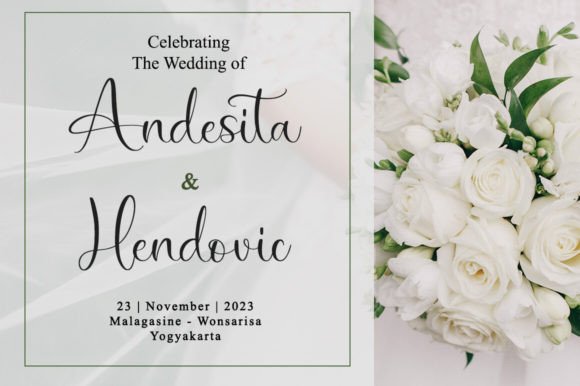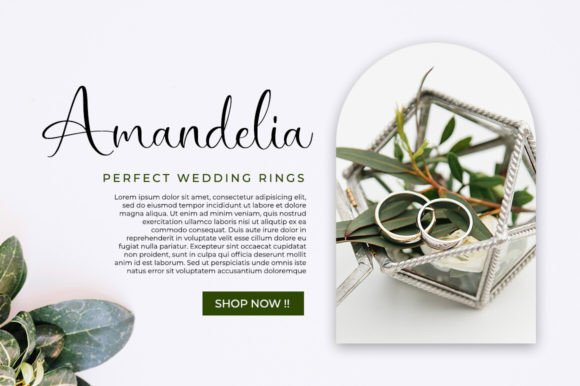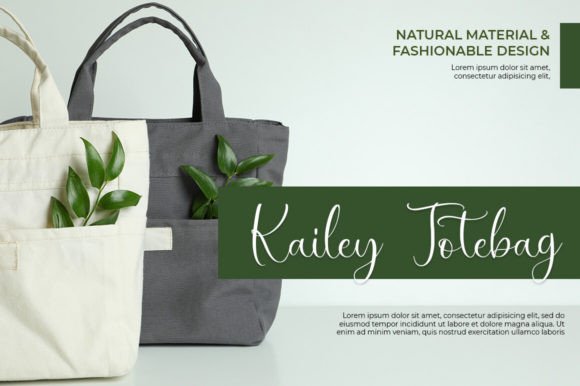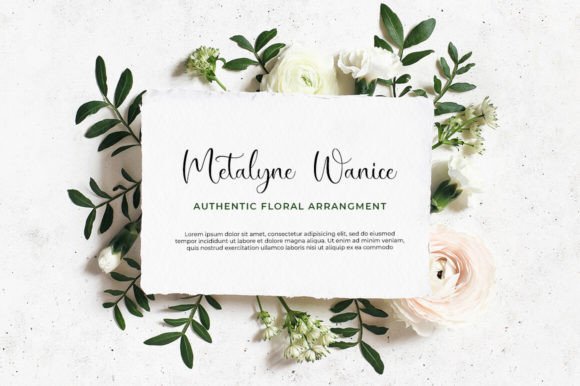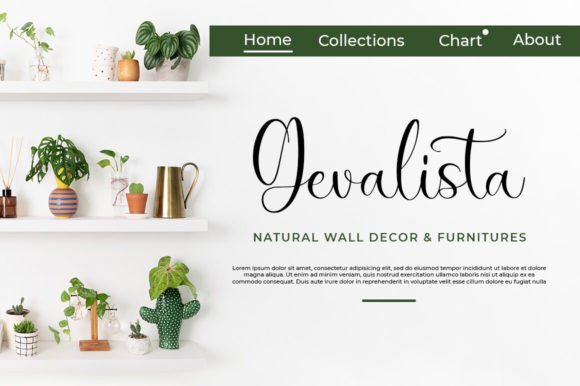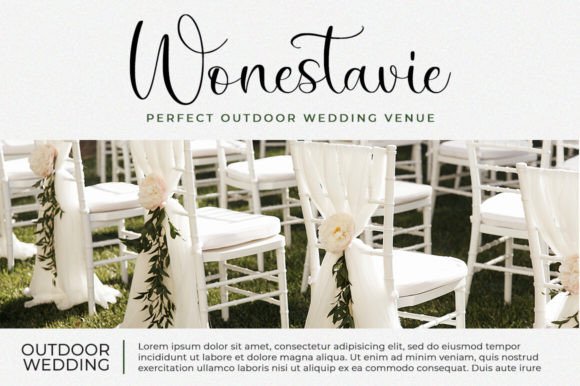
Introduction to Biancalisa Font
Have you ever stared at a blank canvas, searching for the perfect font to bring your creative project to life? I know I have! There’s something magical about watching words transform into a beautiful, handwritten script that captures the essence of your vision. For designers, finding the right font can be a game-changer – it’s the difference between a good design and a great one.
That’s why I’m excited to share with you the Biancalisa Font, a stunning script font that’s perfect for any creative project. With its elegant, high-quality design, this font is a valuable resource for designers looking to add a touch of personality to their work. Whether you’re working on a logo, invitation, or product packaging, the Biancalisa Font is sure to impress.
Key Features of Biancalisa Font
- High-quality font with a unique, elegant design, perfect for creative projects and design resources.
- Designed with a modern aesthetic, Biancalisa Font is ideal for use in logos, branding materials, and other visual identity projects.
Honest Review: Biancalisa Font
One of the standout features of the Biancalisa Font is its high-quality design. The font is clean, modern, and versatile, making it perfect for a wide range of creative projects. I’ve used it for everything from branding to digital art, and it always looks professional.
Here are some of the things that work well with the Biancalisa Font:
- ✨ High-quality design: The font is crisp and clear, making it perfect for both on-screen and print use.
- ✨ Transparent background: This feature allows for seamless integration with transparent backgrounds, giving my designs a clean and modern look.
- ⚠️ Limited font weights: While the Biancalisa Font is available in a range of weights, I wish there were more options for greater flexibility.
- ⚠️ Limited language support: The font only supports a limited range of languages, which may be a concern for designers working on multilingual projects.
Overall, I’m really impressed with the Biancalisa Font. It’s a high-quality design resource that’s perfect for creative projects. With a few minor limitations, it’s a great addition to any designer’s toolkit.
Biancalisa Font
Tips for Getting the Most Out of Biancalisa Font
To get the most out of the Biancalisa Font, use it on a transparent background for a clean and elegant look. You can also pair it with other design elements to create a unique and eye-catching design.
The Biancalisa Font is ideal for creative projects that require a touch of elegance, such as wedding invitations, business cards, and brochures. It’s also great for social media graphics, blog posts, and other online content.
Is the Biancalisa Font suitable for print or digital use?
The Biancalisa Font is designed to be versatile and can be used for both print and digital applications. Its high-quality design ensures that it will look great on various mediums, from business cards and brochures to websites and social media graphics.